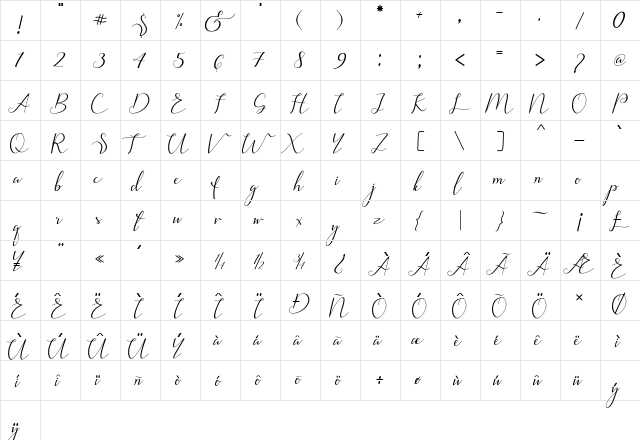
larisa Regular
| Foundry | belovestudio |
| Designer | abdul manan |
Design Context for larisa Typeface
larisa is a composed and adaptable typeface that performs quietly and consistently across a wide range of design contexts.